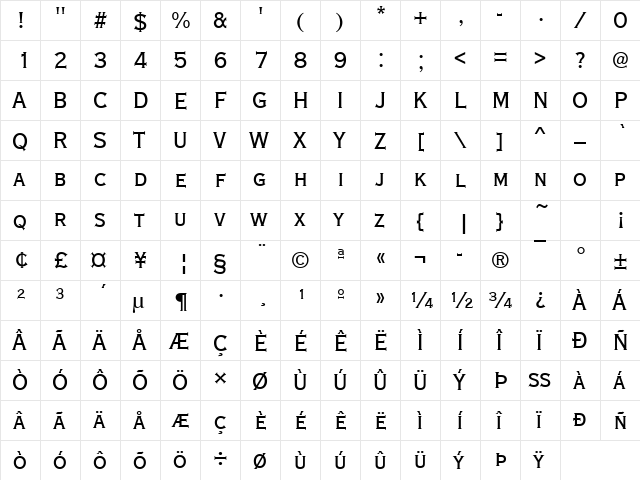
Copperplate Becker Med Cond Regular
Design Context for Copperplate Becker Med Cond Typeface
Copperplate Becker Med Cond takes a measured approach to typography — its balanced proportions and neutral character make it a reliable workhorse for both digital and print work. Its narrow stance lets it pack a punch even in space-constrained designs.